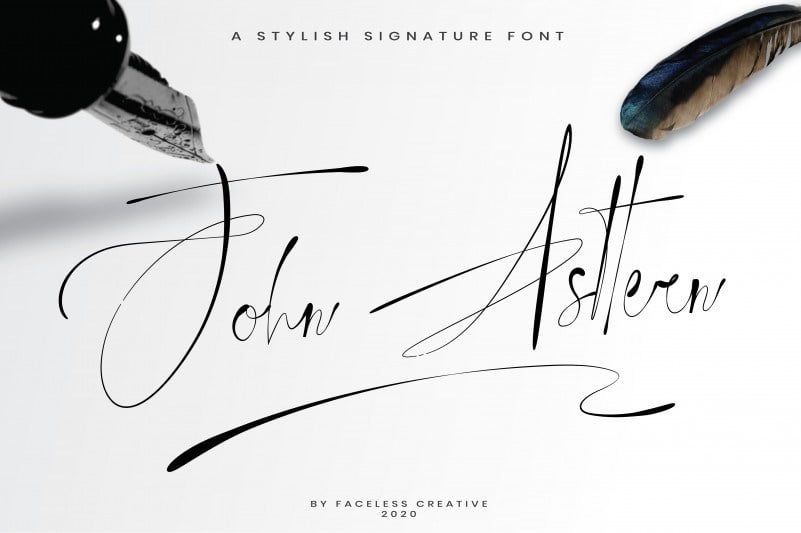
John Asttern Signature Font
John Asttern is a stylish Handwritten Signature Font. It’s the perfect font for wedding invitations, stationery, photography, social media posts, product packaging, logo designs, greeting cards, and much more! Includes in uppercase, lowercase, standard.